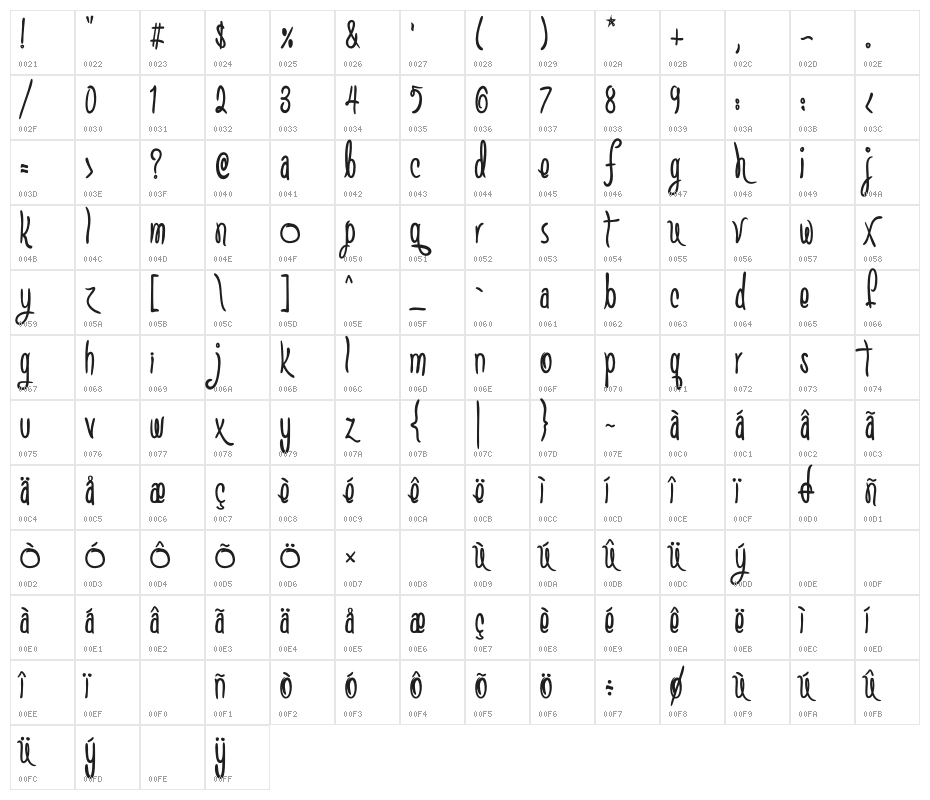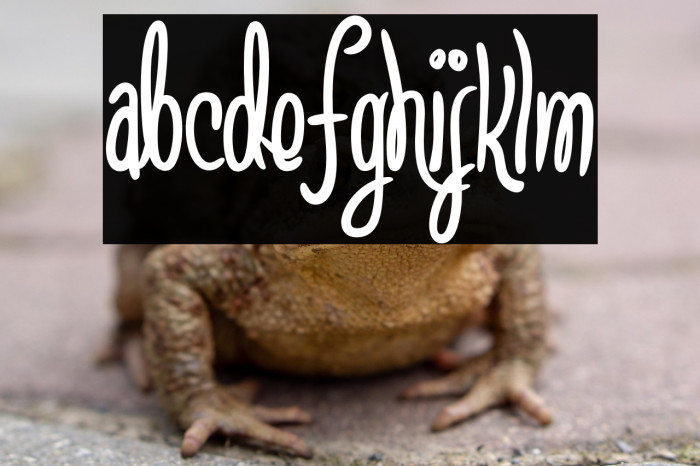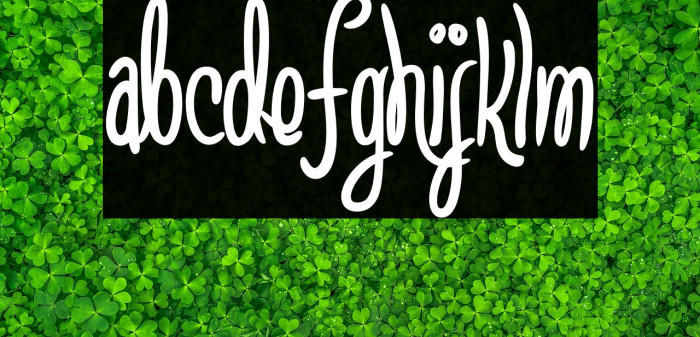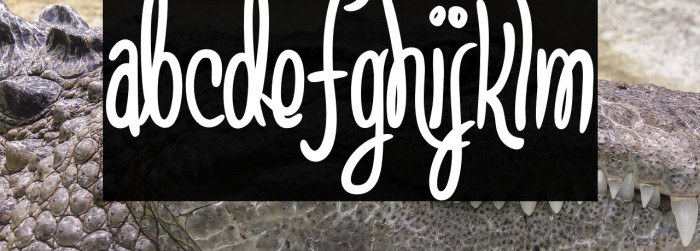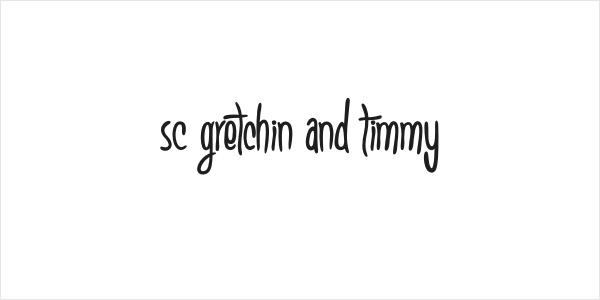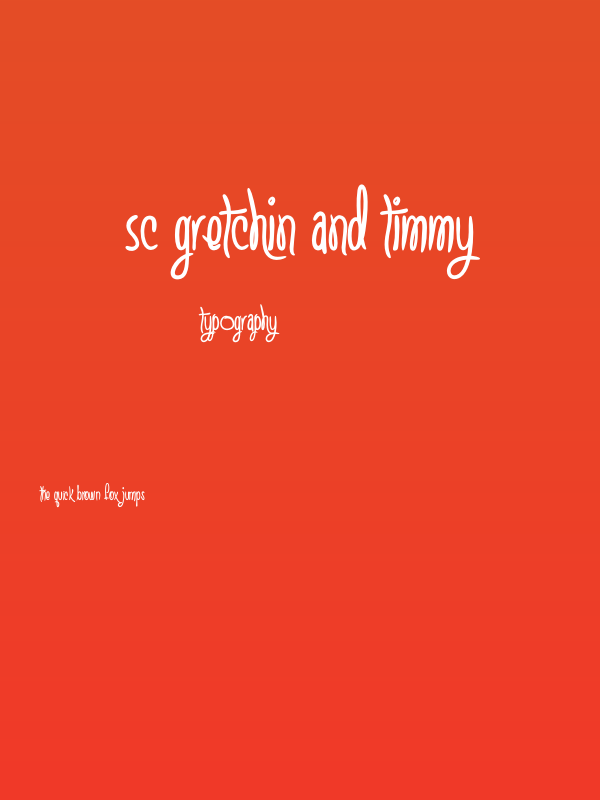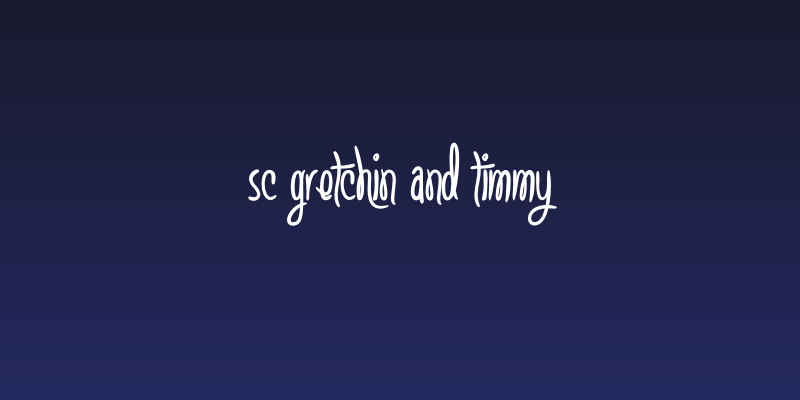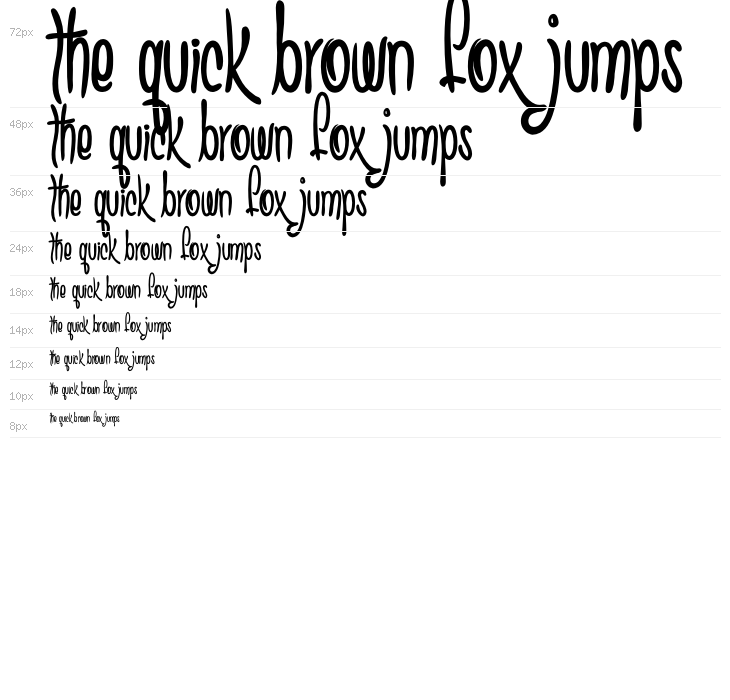
SC Gretchin And Timmy Font
SC Gretchin And Timmy Description
This font exhibits a playful and whimsical style, characterized by its handwritten appearance. The letters are tall and narrow, with a slight slant that adds a dynamic feel. The strokes are smooth and fluid, giving the font an organic and casual look. The uppercase and lowercase letters maintain a consistent style, with rounded edges and a friendly demeanor. Numbers and special characters follow the same playful design, making the font versatile for various creative projects. Its unique style makes it stand out, perfect for adding a personal touch to any design.